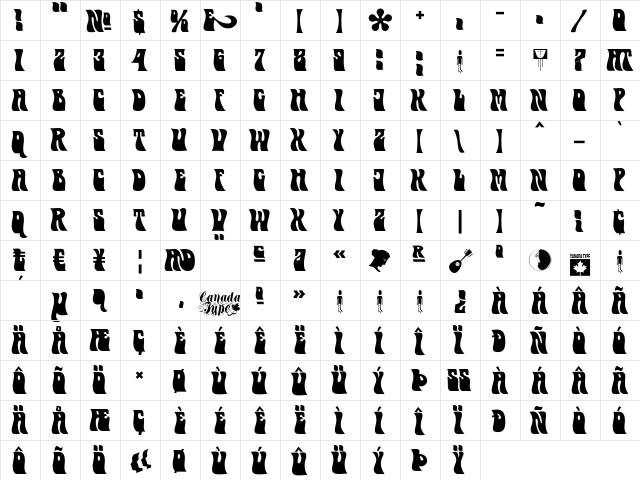
Genie Regular
| Foundry | Canada Type |
| Designer | Rebecca Alaccari |
Design Context for Genie Typeface
Genie is a composed and adaptable typeface that performs quietly and consistently across a wide range of design contexts.